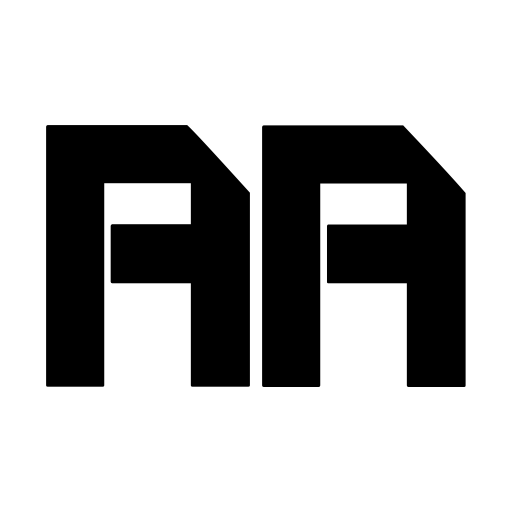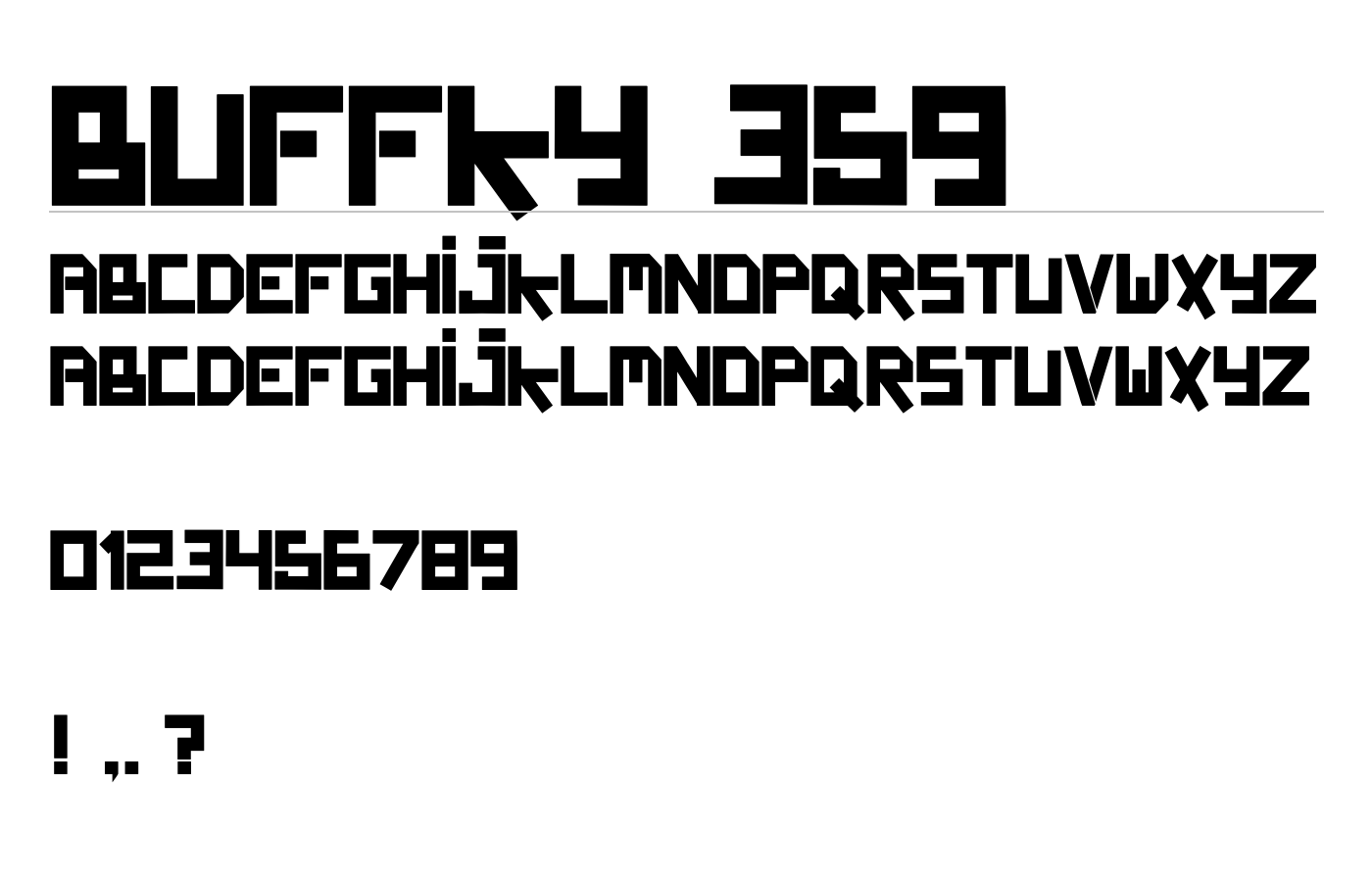
BUFFKY 359 is a bold, geometric sans serif font with a strong, blocky presence and sharp angles, giving it a futuristic and tech-inspired personality. Its uniform stroke weight and tight letter spacing create a compact, modern look perfect for eye-catching headlines, logos, or branding in industries related to gaming, technology, or urban culture. This distinctive font works best in display use where its unique, edgy style can make a memorable visual impact.
BUFFKY 359 Font
About BUFFKY 359 Font